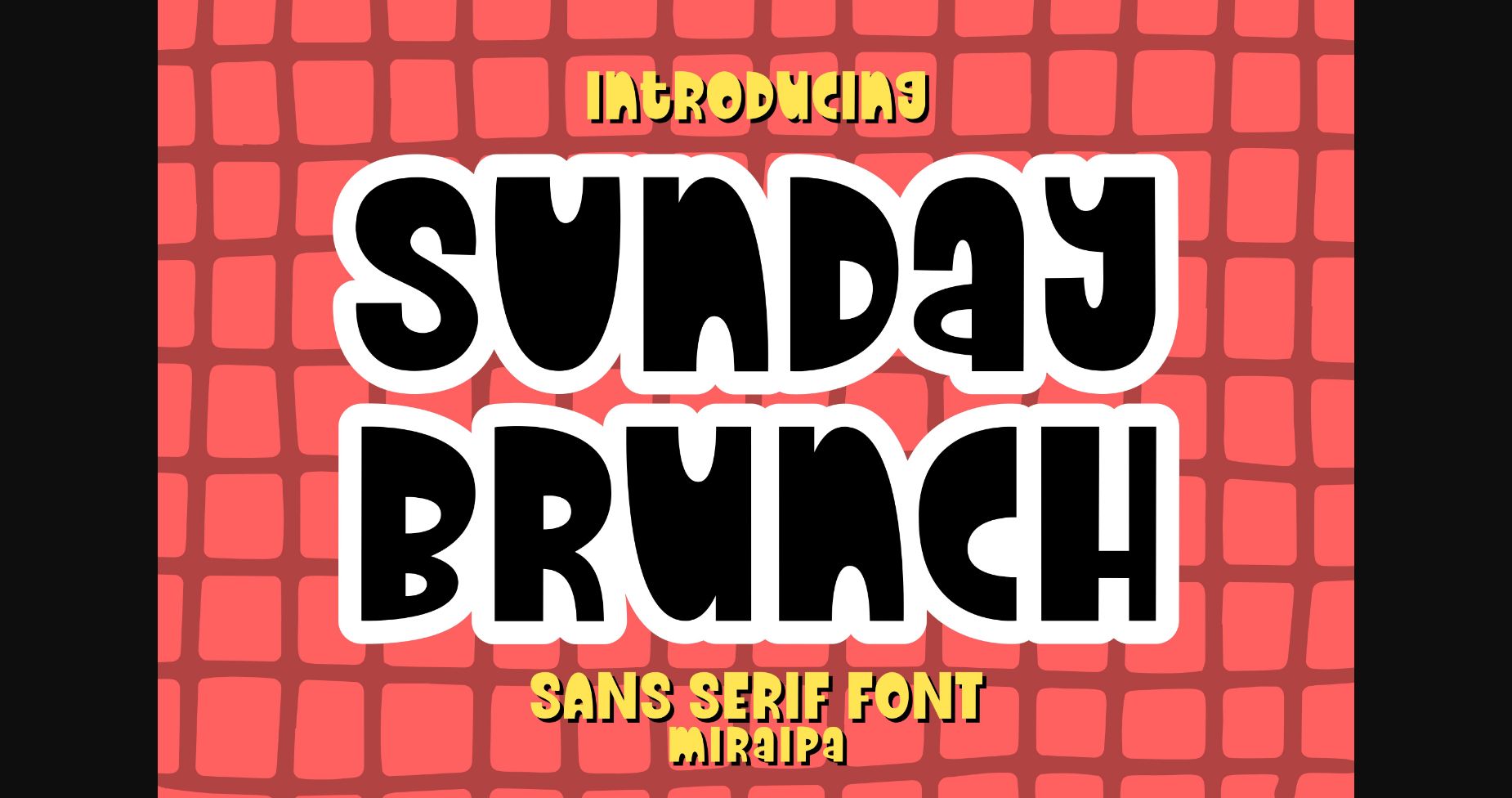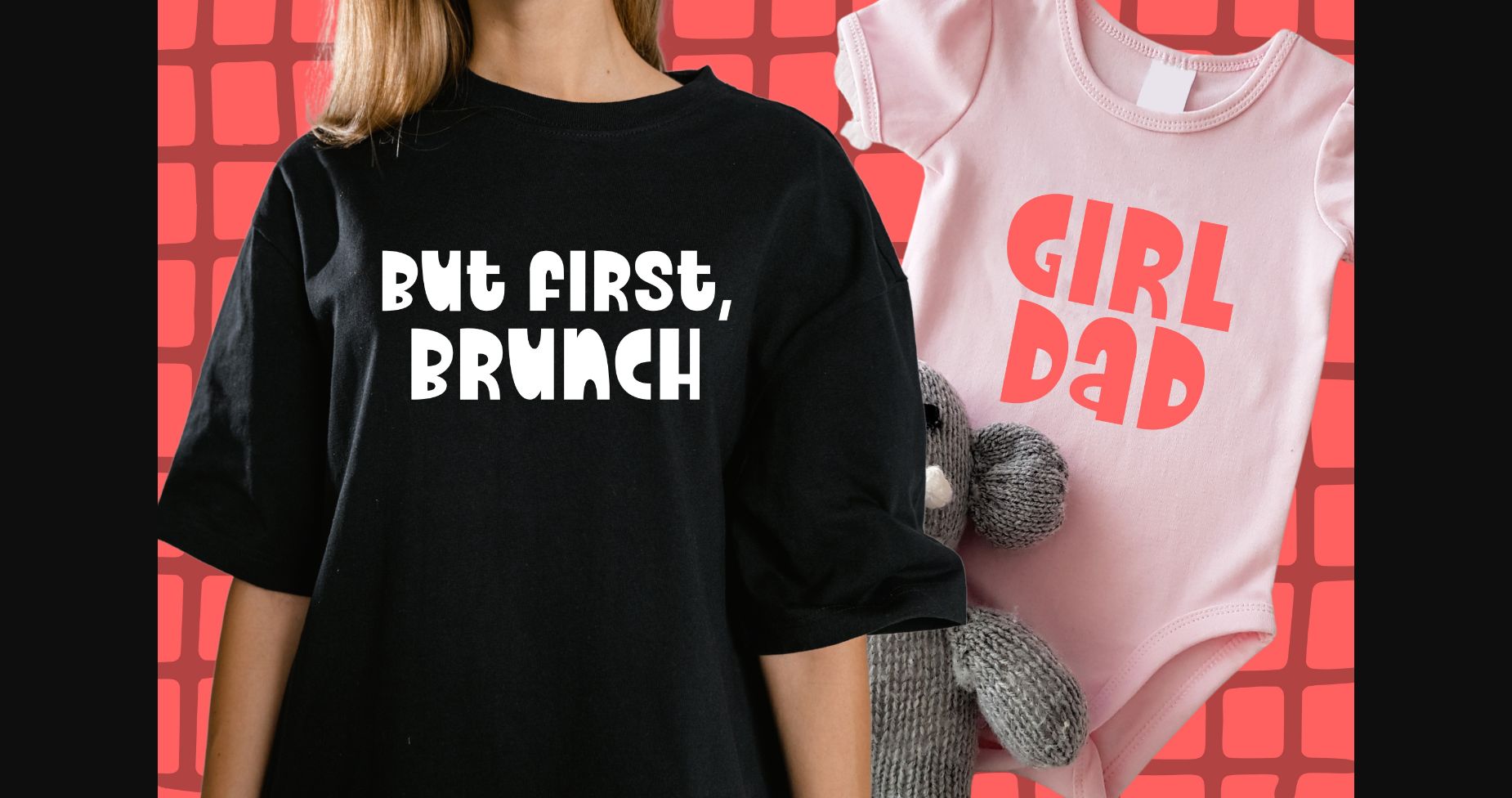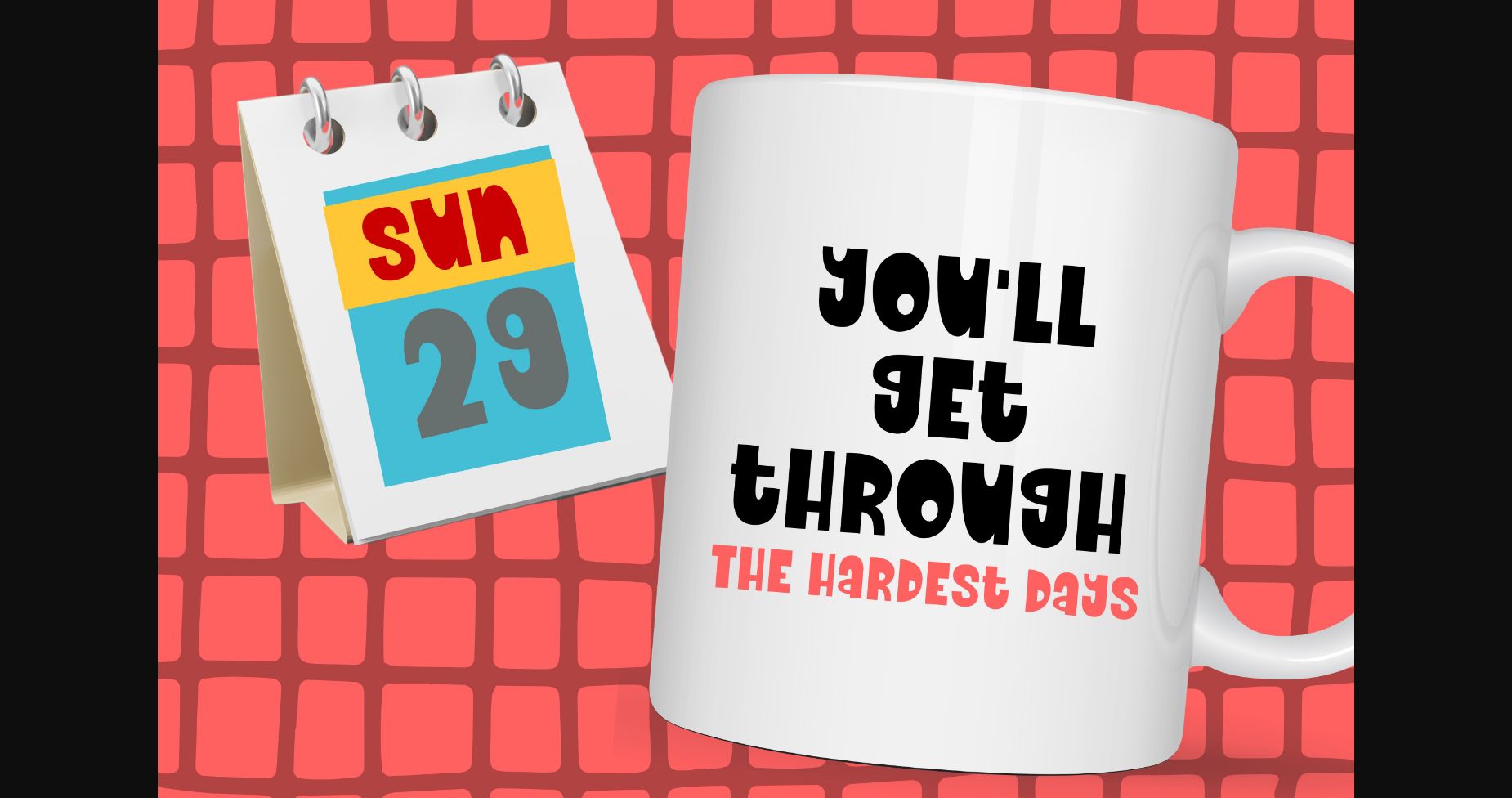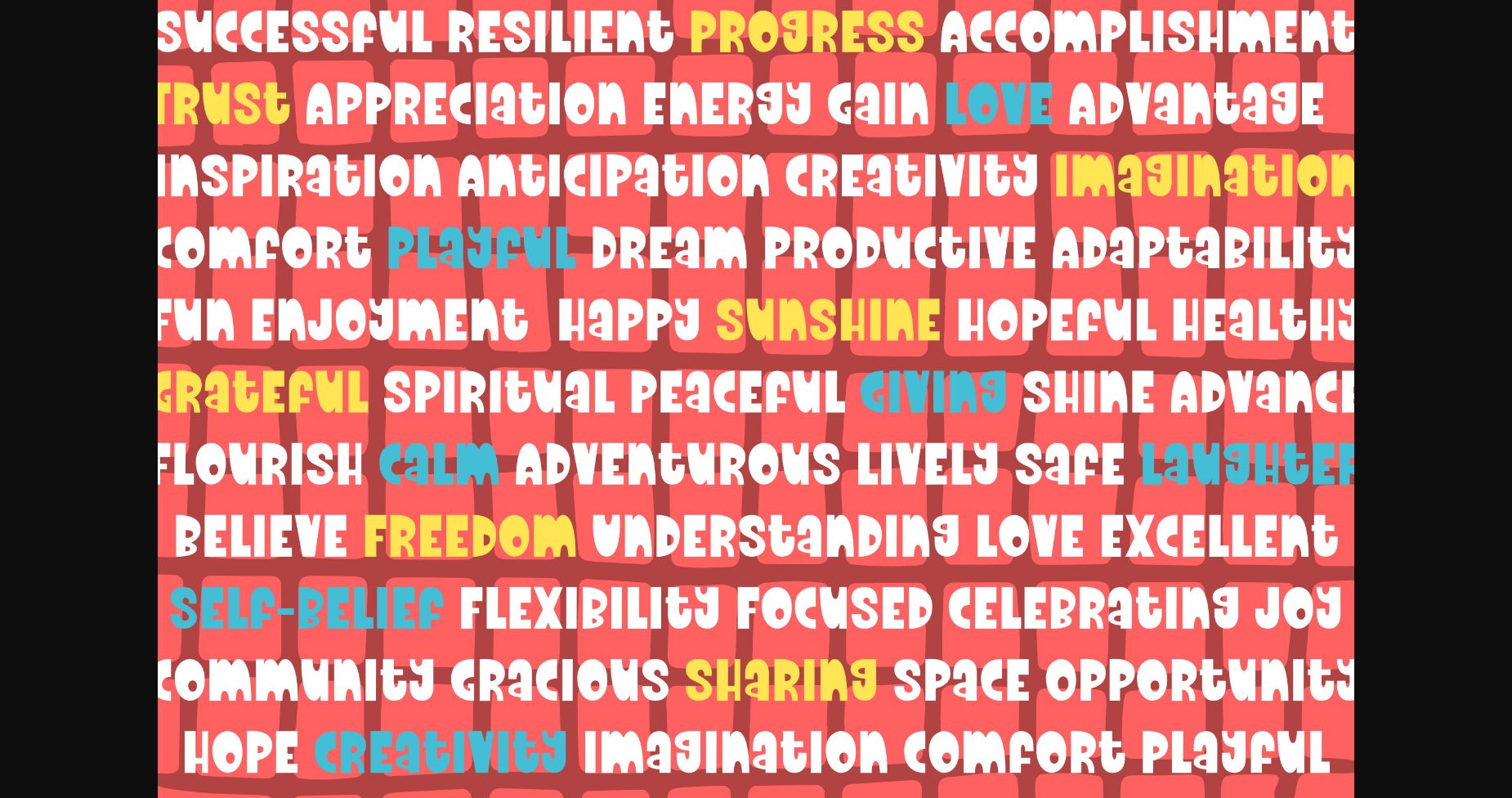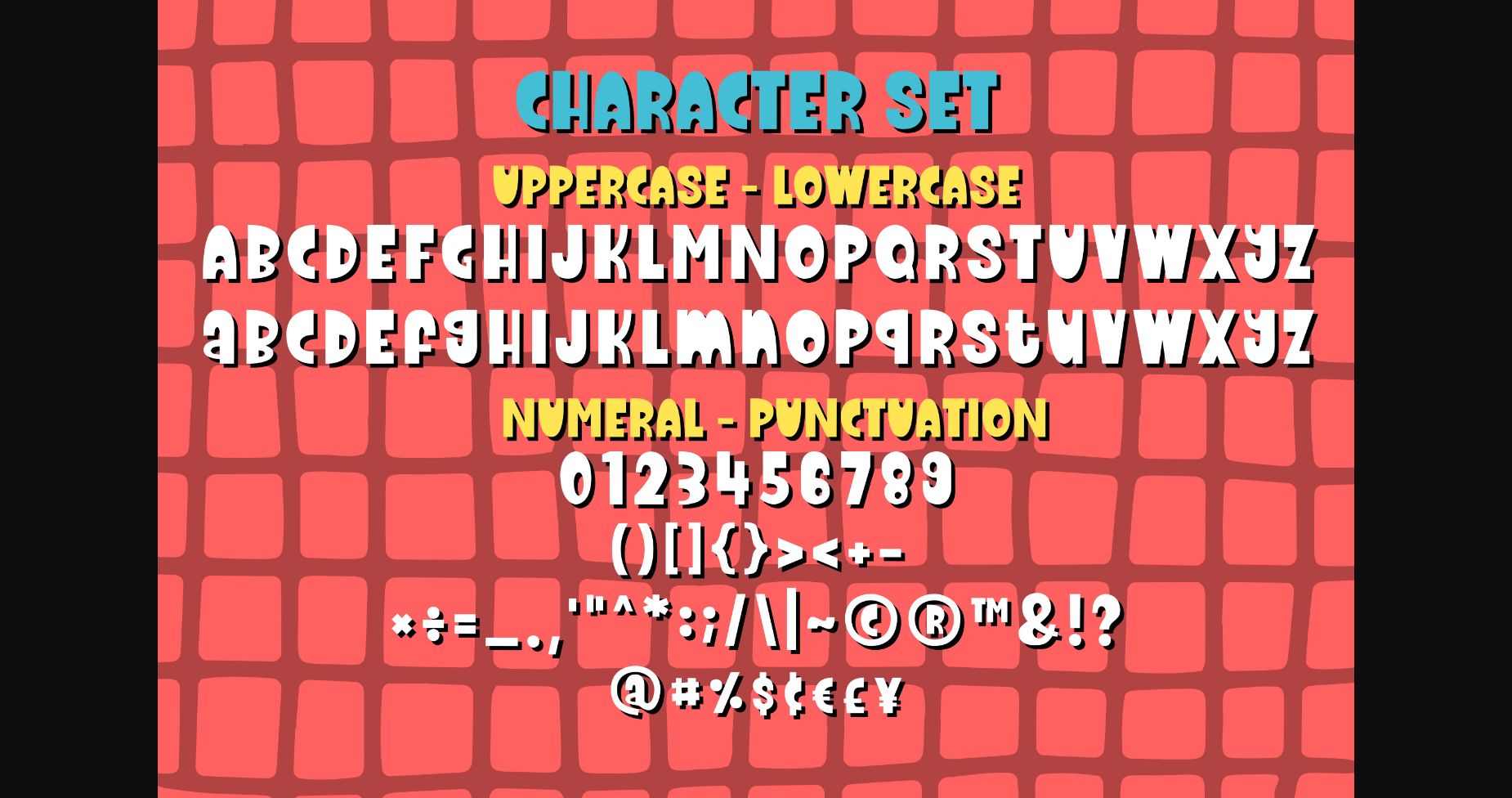
About Sunday Brunch Font
Sunday Brunch is a cute and playful sans display font. Charming, whimsical, and a bit quirky, this font will brighten up each of your designs. Add it confidently to your projects, and you will love the results.